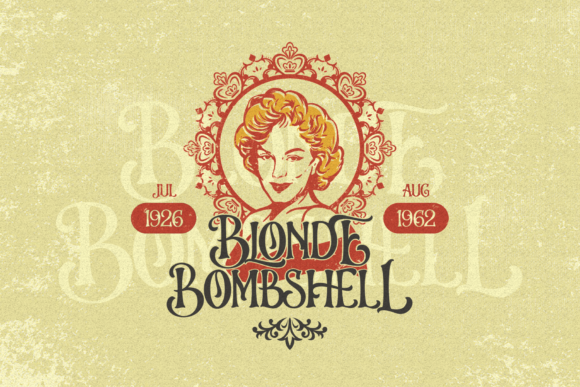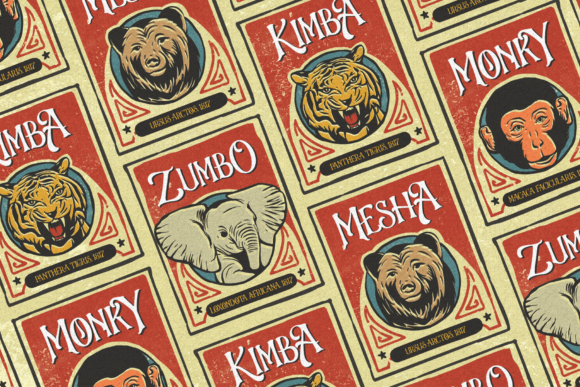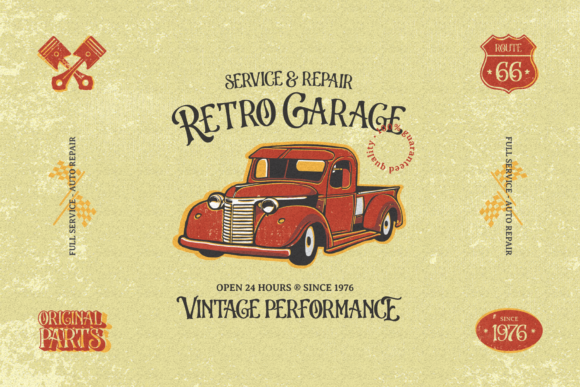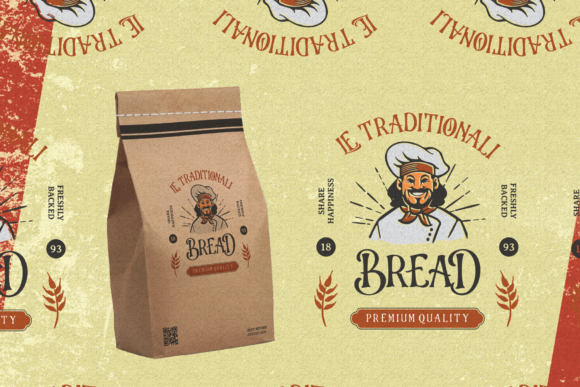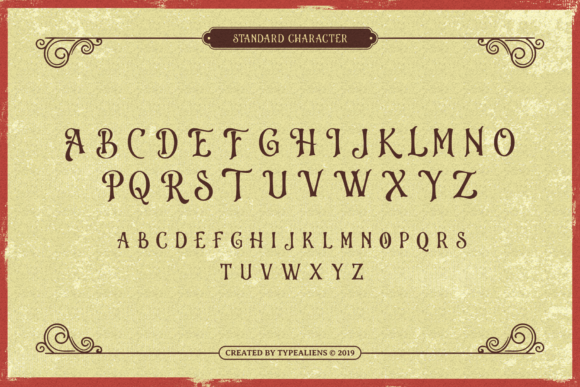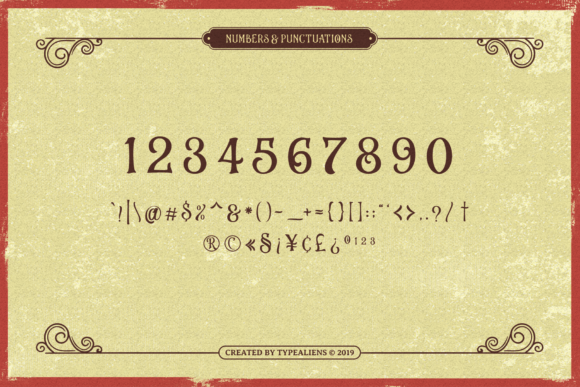
The Antistar Font: A Timeless Classic for Your Designs
I’ll never forget the time I was working on a vintage-inspired branding project for a client, and I was struggling to find the perfect font to capture the essence of their brand. The client wanted something that exuded classic charm, but I just couldn’t seem to find it. That was until I stumbled upon the Antistar font. Its antique look and feel instantly won me over, and I knew I had found the perfect fit. In this article, I’ll share my love for the Antistar font, its features, and how to make the most of it in your designs.
• ✨ The classic style of Antistar gives it an undeniable charm that works well for display fonts.
• ✅ The font’s antique look and feel make it perfect for vintage-inspired designs.
• 💫 It’s highly versatile and can be used for a wide range of design projects, from branding to packaging.
• 🎨 The font’s unique character makes it stand out from more modern fonts.
While the Antistar font is amazing, there are a few things to keep in mind:
• 🤔 Some of the glyphs and stylistic alternates can be a bit tricky to navigate, especially for beginners.
• ⚠️ The font may not work as well for body text due to its display font nature.
The Backstory of Antistar
The Antistar font was designed with the intention of capturing the essence of classic typography. The designer wanted to create a font that exuded charm and sophistication, while still being unique and eye-catching. The result is a font that’s both timeless and modern, making it perfect for a wide range of design projects.
What is the Antistar font best used for? The Antistar font is best used for display purposes, such as headings, titles, and branding.
Is the Antistar font suitable for body text? No, the Antistar font is not suitable for body text due to its display font nature.
Is the Antistar font easy to read? Yes, the Antistar font is easy to read, especially at larger sizes.